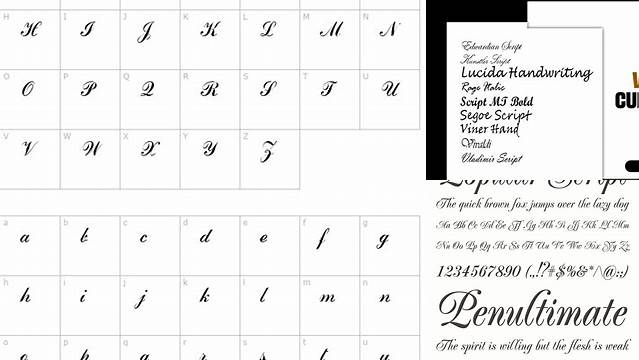
Popular Script Fonts In Windows: A Comprehensive Guide
Are you looking to add a touch of elegance and personality to your documents, designs, or creative projects? Script fonts are a fantastic way to do just that! These fonts mimic the flowing strokes of handwriting, adding a personal and stylish flair. If you're a Windows user, you're in luck because Windows comes pre-loaded with a variety of script fonts that you can use right away. In this article, we'll dive into some of the most common script fonts available on Windows, explore their unique characteristics, and give you some ideas on how to use them effectively. So, let's get started and discover the world of script fonts on Windows!
Exploring Popular Script Fonts on Windows
When it comes to script fonts, Windows offers a diverse selection, each with its own distinctive style. Understanding these differences is key to choosing the perfect font for your project. We will explore some of the most popular script fonts that come standard with Windows. These range from formal and elegant to casual and playful, so there's something for every taste. We'll discuss their characteristics, including their weight, slant, and overall feel, as well as some ideal use cases for each font. By the end of this section, you'll have a solid understanding of the script font options at your fingertips.
Brush Script MT
Brush Script MT is a classic script font that emulates the look of brushstrokes. This font is characterized by its bold, flowing lines and slightly irregular letterforms, giving it a natural, hand-painted feel. The thick and thin strokes create a dynamic rhythm, making it a visually appealing choice for a variety of applications. Brush Script MT exudes a sense of energy and informality, making it well-suited for designs that aim to convey a friendly and approachable vibe. It’s a very common font that users will find across a wide range of Windows operating systems, which means it's very safe to use in documents that will be shared among different Windows users. This helps to ensure that the original design intent is maintained across different computers.
Ideal Uses for Brush Script MT
This font shines in situations where you want to add a touch of personality and flair. Think about using it for invitations, posters, and social media graphics. It can also work well for headings and titles, adding a bit of visual interest. However, it’s important to note that Brush Script MT can be a bit challenging to read in large blocks of text due to its decorative nature. So, it’s best to reserve it for shorter phrases and headlines. When using Brush Script MT, consider the overall tone of your design. It works particularly well when paired with clean, sans-serif fonts to create a balanced and modern aesthetic. Remember to use it sparingly to maximize its impact and avoid overwhelming the viewer.
Lucida Calligraphy
Lucida Calligraphy is a more formal and elegant script font. It features delicate, flowing strokes and graceful letterforms, making it a sophisticated choice for projects that require a touch of class. The font’s refined appearance lends itself well to designs that aim to convey a sense of tradition and prestige. Lucida Calligraphy is known for its readability, even at smaller sizes, which makes it a versatile option for various applications. Its elegant curves and balanced proportions make it a visually pleasing font that can elevate the overall aesthetic of your work.
Best Applications for Lucida Calligraphy
This font is particularly well-suited for formal invitations, certificates, and other documents where elegance is key. Consider using it for wedding invitations, diplomas, or award certificates to add a touch of sophistication. Lucida Calligraphy can also be used for headings and titles in print or digital media, providing a refined and polished look. When using this font, it’s important to maintain a sense of balance and proportion in your design. Pair it with simple, clean fonts to avoid a cluttered or overwhelming appearance. Lucida Calligraphy is best used in moderation, allowing its elegance to shine without overpowering the overall design. Think about using it to accentuate key elements, rather than for large blocks of body text, to ensure readability and maintain visual appeal.
Script MT Bold
Script MT Bold is another popular script font included with Windows, offering a bolder and more pronounced appearance compared to some of its counterparts. As the name suggests, this font is a bolder version of a traditional script, making it stand out and command attention. Its strong, flowing lines and clear letterforms make it a great option for designs where you need a script font with a bit more visual weight. Script MT Bold maintains the elegance of a script font while providing enhanced readability, making it a versatile choice for a variety of applications.
When to Use Script MT Bold
This font works well in situations where you want to make a statement. It's an excellent choice for headlines, titles, and short bursts of text where you want to grab the reader's attention. Consider using Script MT Bold for posters, advertisements, or event announcements. Its boldness ensures that your message is clearly conveyed. However, it’s crucial to use Script MT Bold judiciously. Due to its weight, it may not be suitable for large blocks of text, as it can become overwhelming. Pair it with lighter, simpler fonts to create a visual contrast and balance in your designs. This font can add a touch of personality and flair while maintaining a sense of professionalism and clarity. Think about using it to emphasize key words or phrases, drawing the eye to important information.
Vivaldi
Vivaldi is a beautiful and ornate script font that adds a touch of grandeur to any design. This font is characterized by its flourishes, loops, and elegant curves, making it a truly eye-catching option. It exudes a sense of luxury and sophistication, making it well-suited for projects that aim to convey a high-end feel. Vivaldi is a highly decorative font, so it's best used sparingly to avoid overwhelming the design.
Creative Ways to Use Vivaldi
Consider using Vivaldi for formal invitations, certificates, or any project where you want to add a touch of elegance and drama. It can be particularly effective for headings, titles, and monograms. However, due to its intricate design, Vivaldi is not the most readable font for large blocks of text. It's best to use it for shorter phrases and to pair it with simpler, cleaner fonts for body text. When using Vivaldi, pay close attention to the spacing and kerning to ensure that the letters don't clash and that the overall appearance is balanced. This font is a powerful tool for creating a memorable and sophisticated impression, but it's important to use it with a careful and deliberate approach.
Script fonts are a fantastic way to add personality and elegance to your designs. Windows offers a variety of built-in script fonts, each with its own unique charm. By understanding the characteristics of these fonts and following our tips for effective usage, you can create stunning visuals that stand out. Whether you're designing invitations, creating social media graphics, or working on a presentation, script fonts can help you convey your message with style. And, if you ever need more options, installing new fonts on Windows is a breeze. So go ahead, explore the world of script fonts and let your creativity flow!